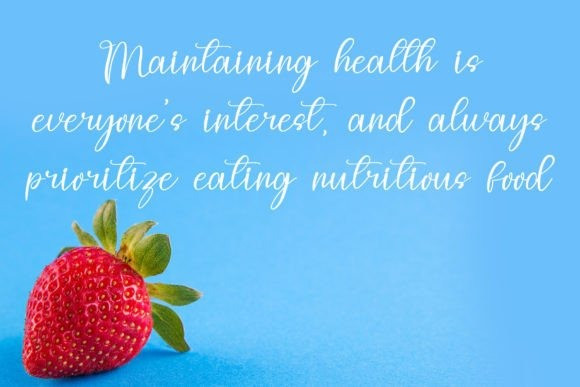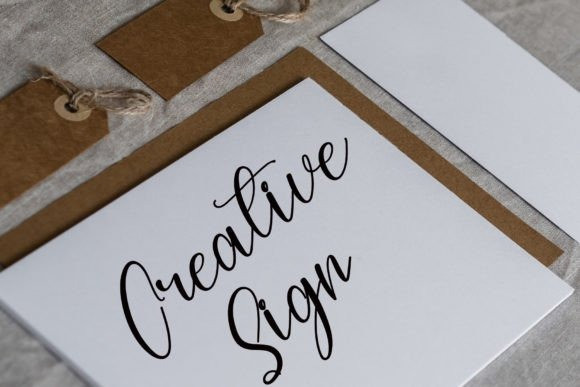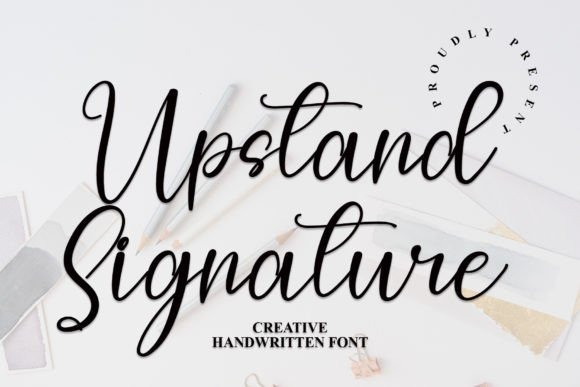
Upstand Signature Font
Upstand Signature Font is an enchanting handwritten font. This versatile script font has a wide spectrum of applications ranging from greeting cards to headlines and is guaranteed to add a romantic feel to your next project.